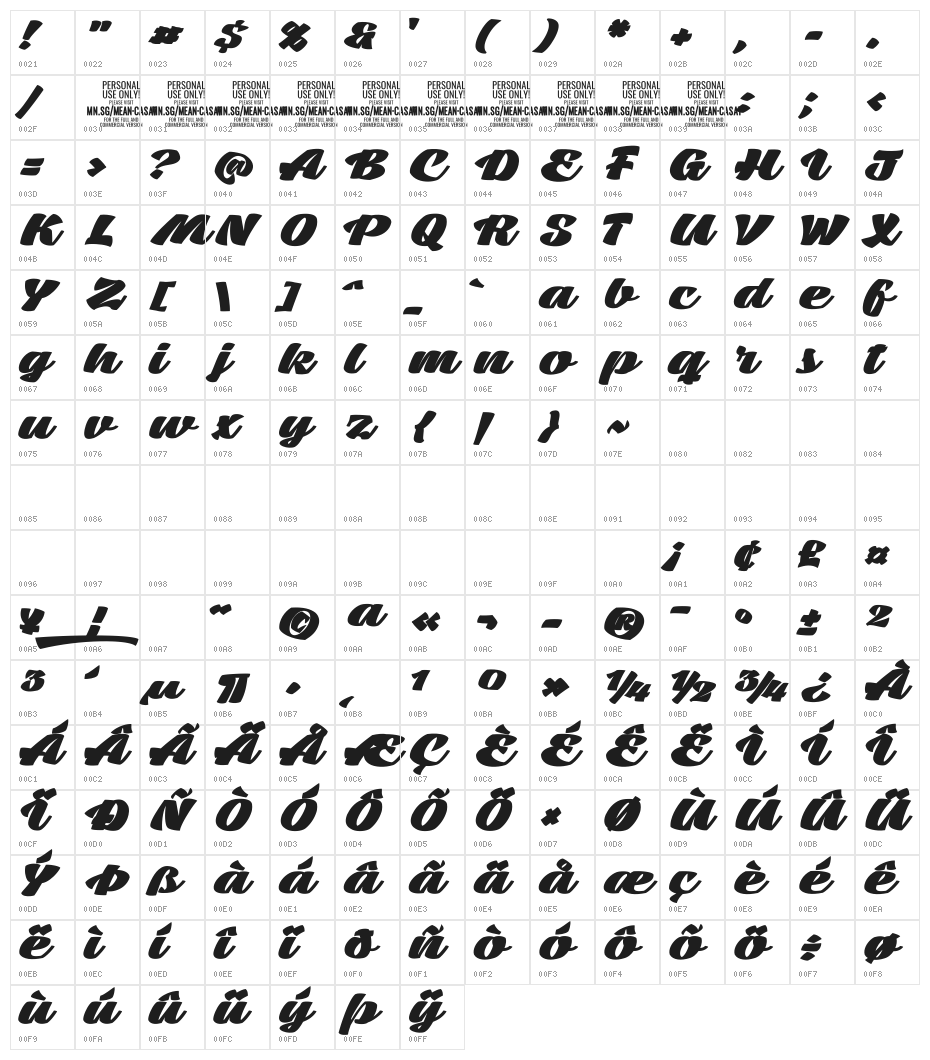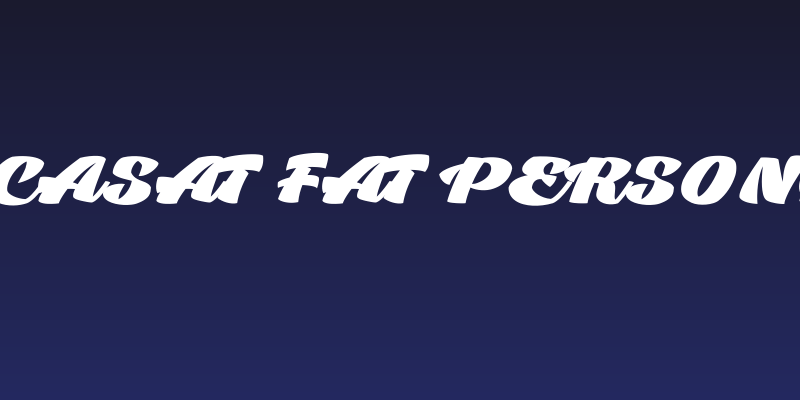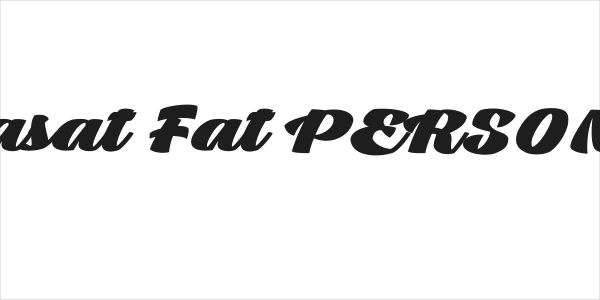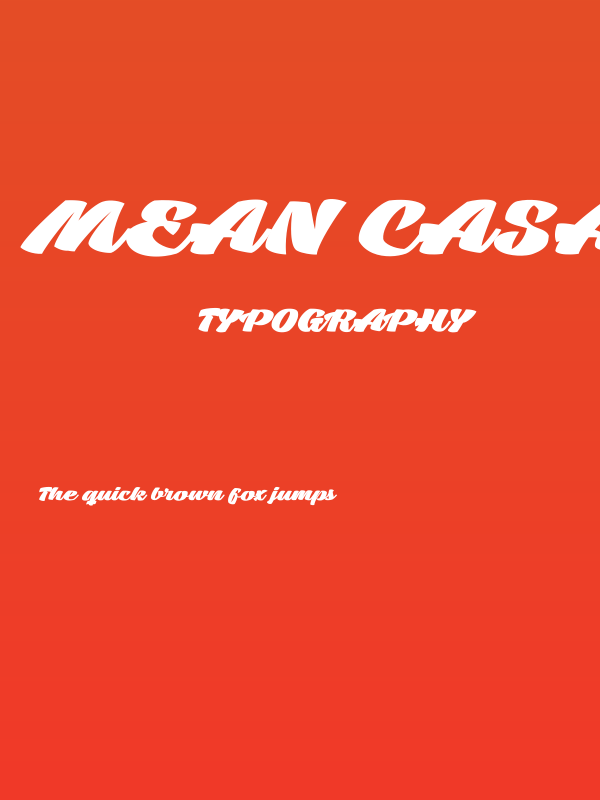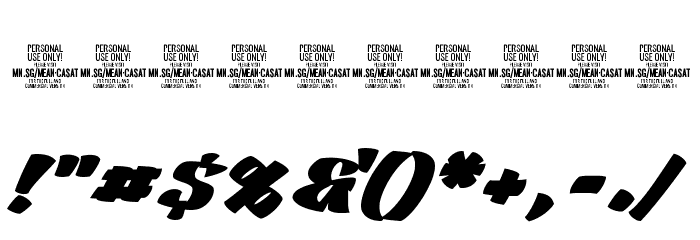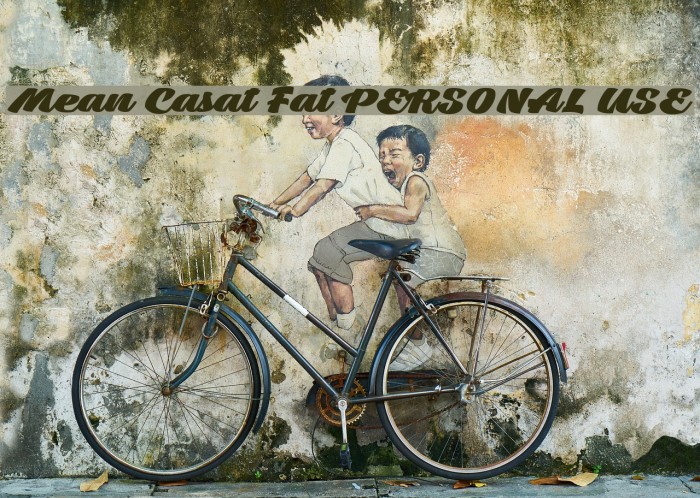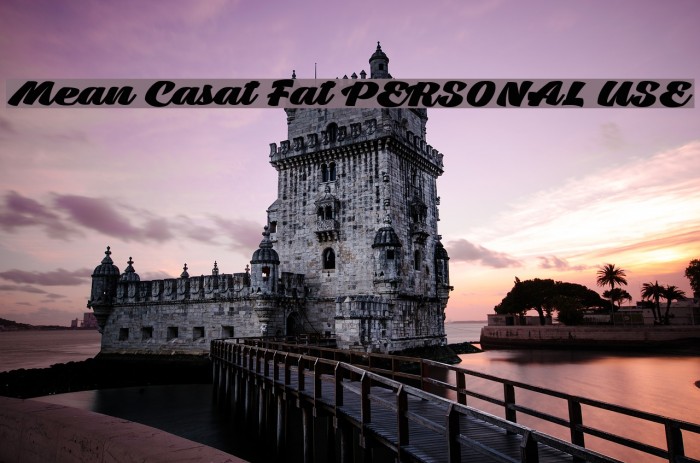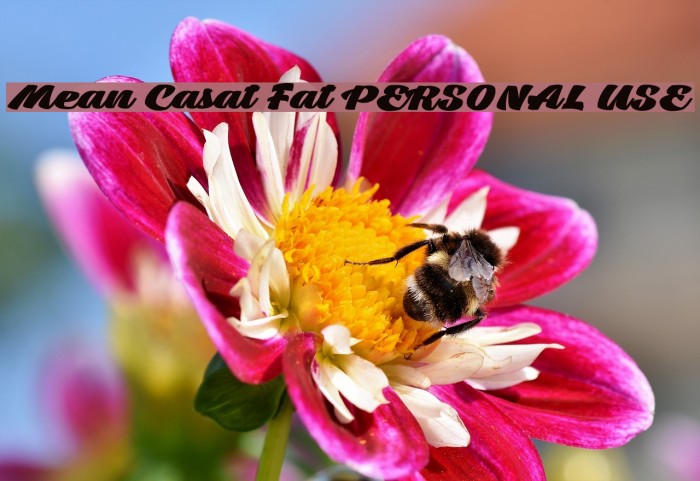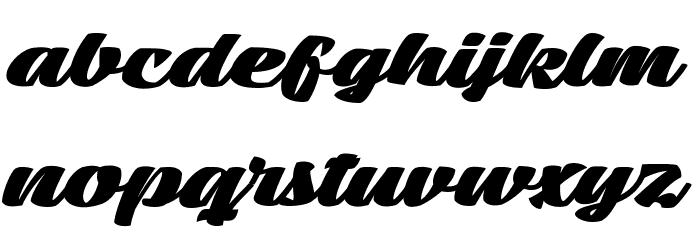
Mean Casat Fat PERSONAL USE Font
Mean Casat Fat PERSONAL USE Description
This font features a bold and dynamic script style with a strong presence. The letters are interconnected, creating a fluid and continuous flow that is both elegant and assertive. The uppercase letters are particularly striking, with sweeping curves and a sense of movement that adds to the overall impact. The lowercase letters maintain the same fluidity, ensuring consistency throughout. The numbers and special characters are designed to match the boldness and style of the alphabet, making it suitable for a wide range of applications. The font's thick strokes and high contrast give it a powerful and eye-catching appearance, perfect for making a statement.
| Use Case | Logos, Headlines |
| Proposed Projects | Ideal for branding, logos, headlines, and any project that requires a strong, impactful script style. |